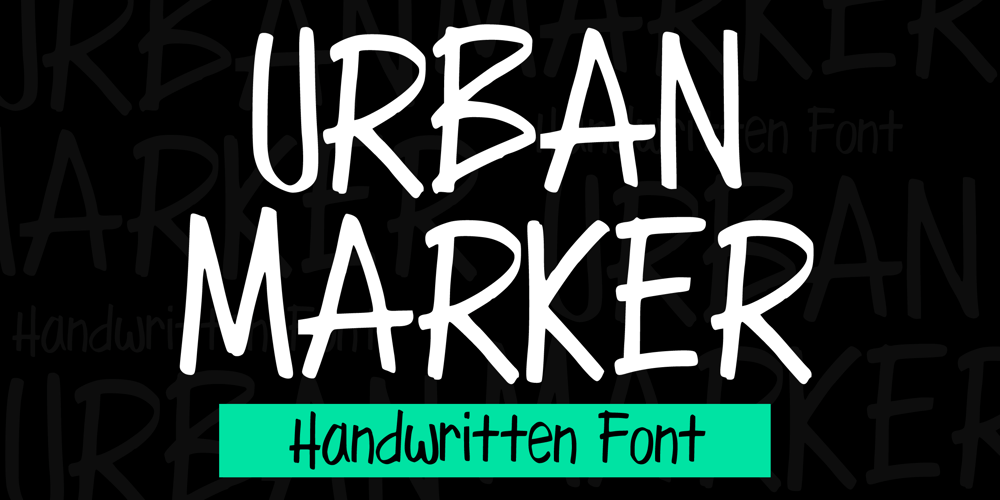
Urban Marker Font Family was designed by Gabriel Valentinus and published by Mvmet. Urban Marker contains 1 styles and family package options. Urban Marker is a fun and cool handwritten font, inspired by quick graffiti tags writing and street art. It will elevate a wide range of design projects to the highest level. You can use this font for many design ideas such as stickers, t-shirt designs, amazing logo designs, magazine or book covers, comics, cartoon drawings, and many more. This font will add a cool touch to your designs!